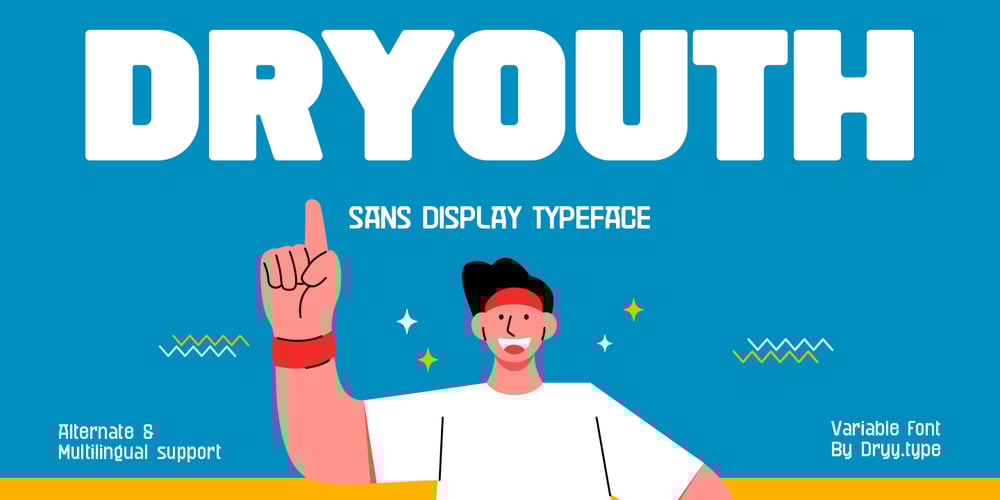
Dryouth Font Family was designed by Rian Dryana and published by Dryy Type. Dryouth contains 9 styles and family package options. Dryouth FamilyThe Dryouth family are sports-inspired fonts with a little playful twist to being a font that’s less serious but can still be formal. This font I created is meaningful & very versatile, it goes well with various designs, elevating them to the highest level. Add this font to your favorite creative ideas and see the results!Features : Uppercase, Lowercase, Alternate, Ligatures, Numerical, & Multilingual Support